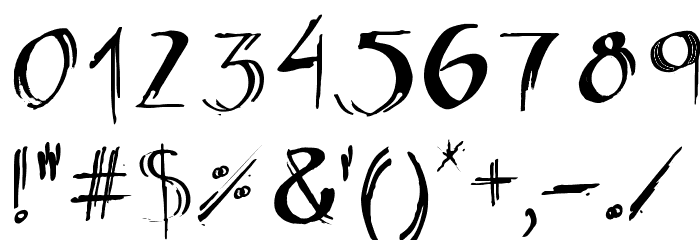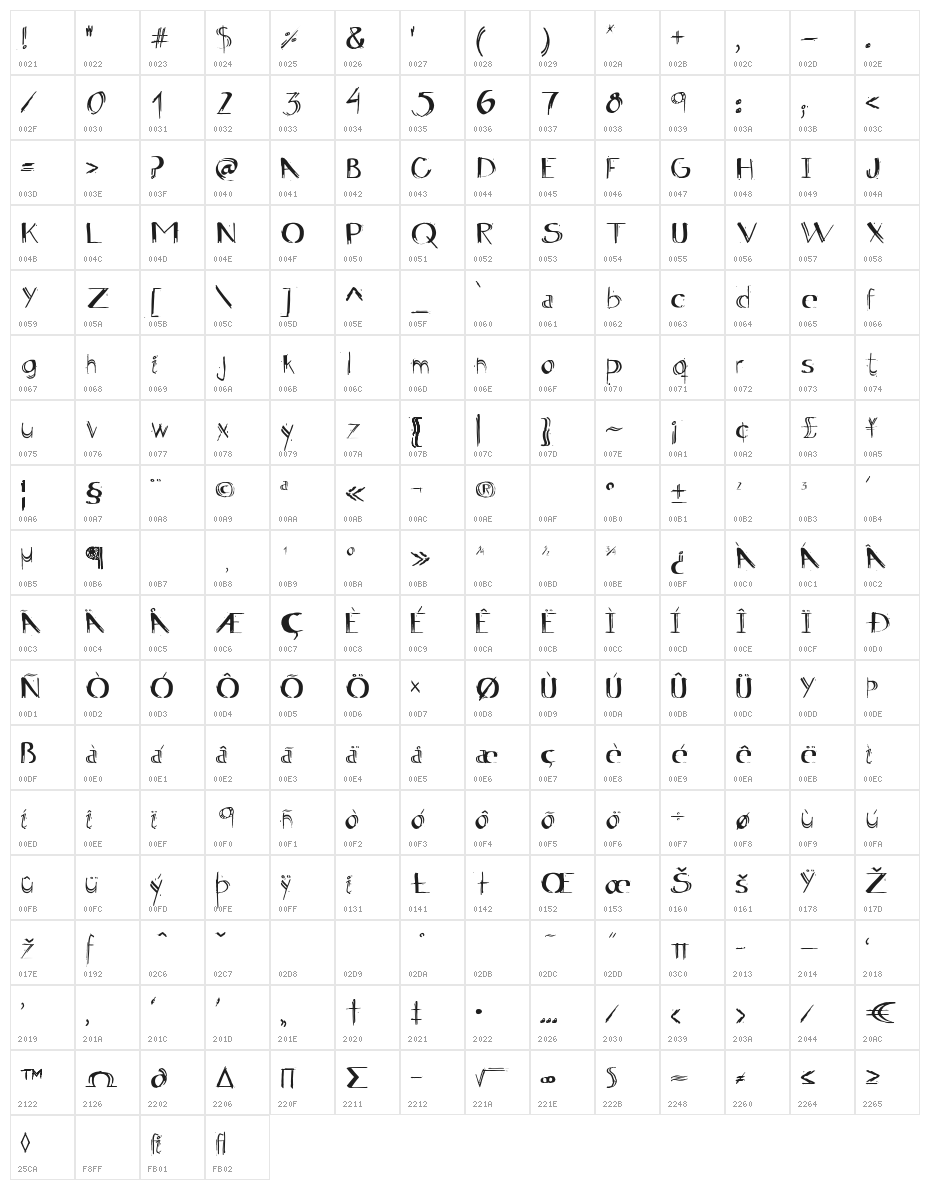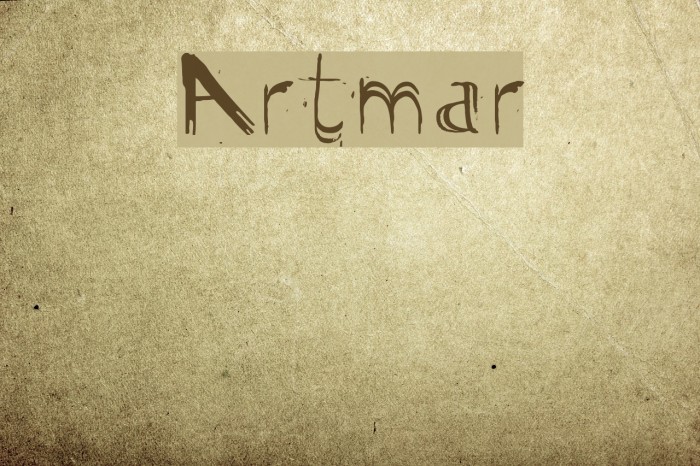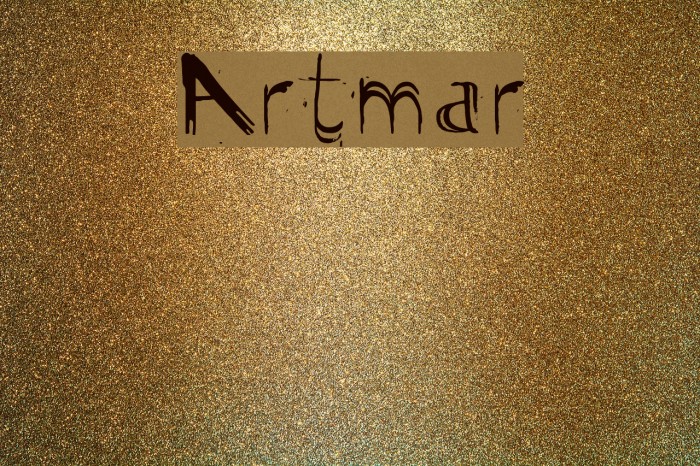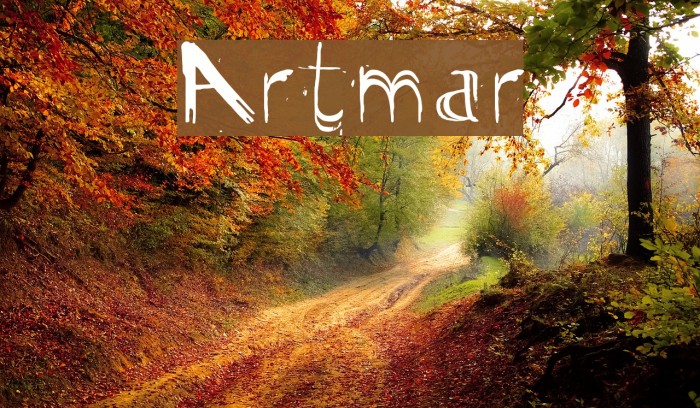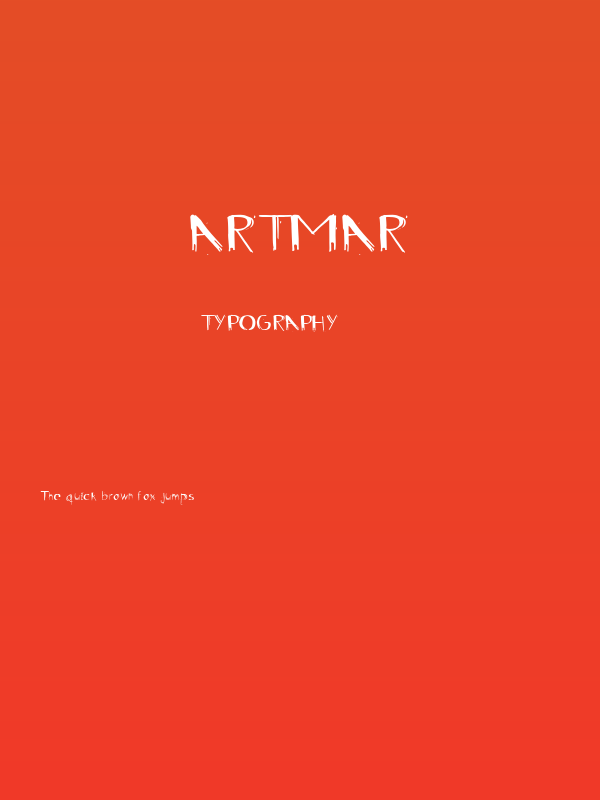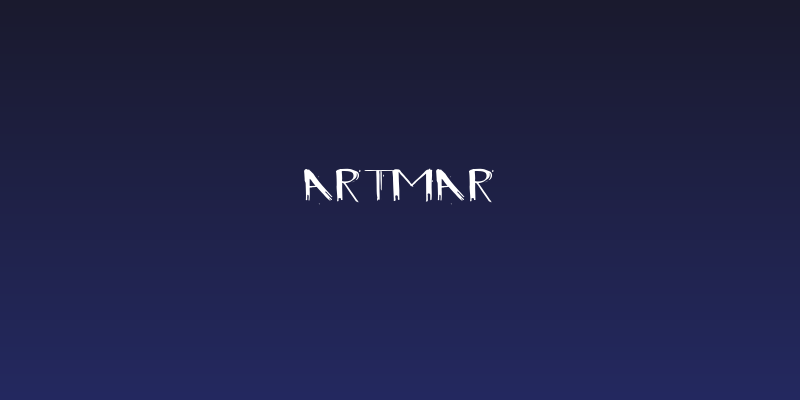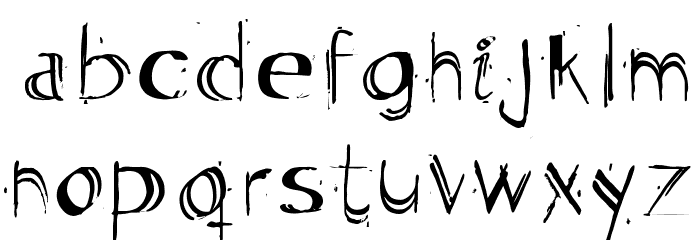
Artmar Font
Artmar Description
This font exhibits a distinct, artistic flair with its brushstroke-like appearance, giving it a dynamic and expressive quality. The characters are irregular and slightly distressed, adding a raw, organic feel. The uppercase letters are bold and commanding, while the lowercase letters maintain a consistent style, enhancing the font's cohesive look. The numerals and special characters follow the same design principles, ensuring uniformity across all glyphs. This font's unique style makes it stand out, ideal for projects that require a touch of creativity and individuality.
| Overall Style | Artistic, Expressive |
| Proposed Projects | Perfect for creative projects such as posters, album covers, artistic branding, and event invitations. |